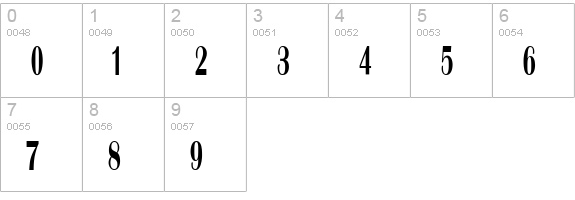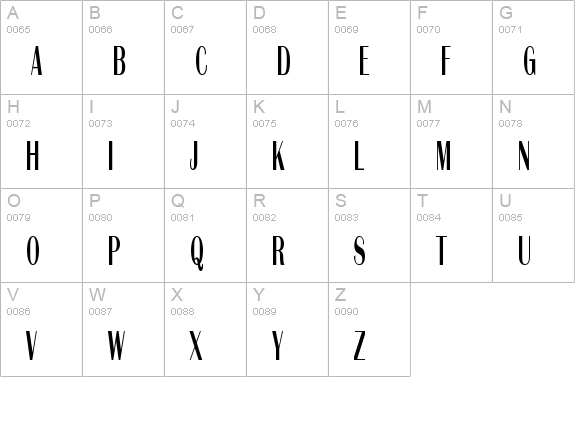
CgMetronomeGothic Font Details
CgMetronomeGothic is a striking and modern font that combines elements of both metronomic precision and gothic elegance. This unique typeface exudes a sense of sophistication and versatility, making it perfect for a wide range of design projects. Its clean lines and sharp edges give it a contemporary edge, while its intricate details add a touch of timeless beauty. What makes CgMetronomeGothic even more appealing is that it is completely free to download. You can easily access this font at FontsMarket.com, where you can add it to your collection without any cost. Whether you're designing a sleek logo, a stylish poster, or a professional website, CgMetronomeGothic is sure to make a bold statement and elevate your project to the next level. Download it today and unleash your creativity with this stunning font.